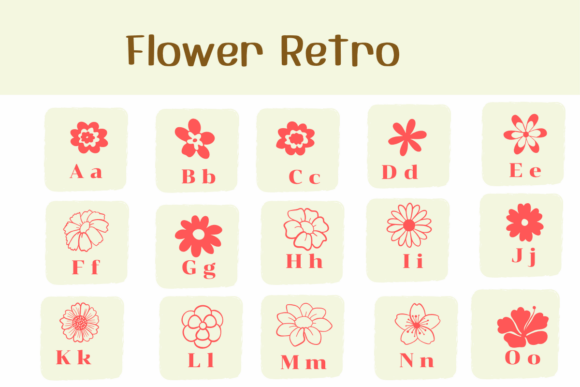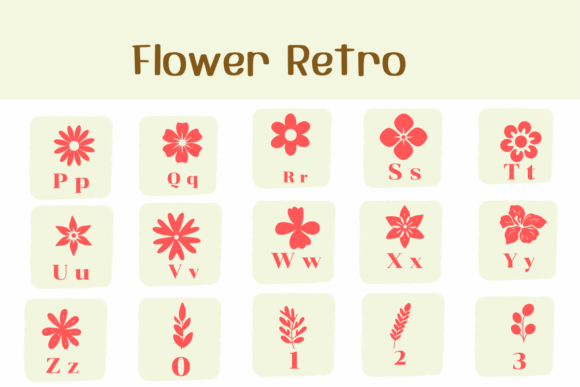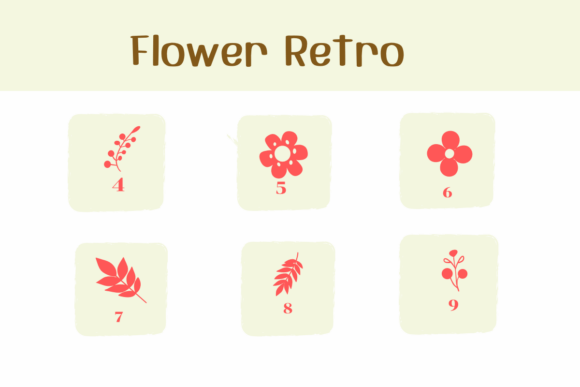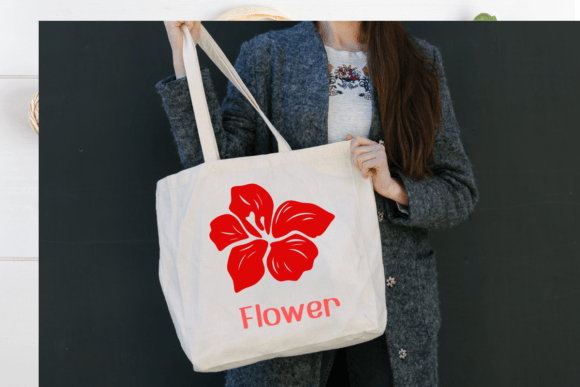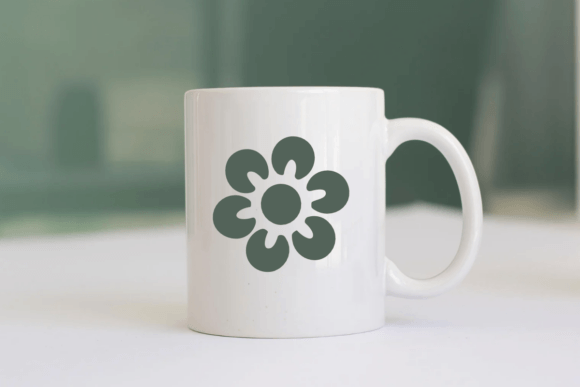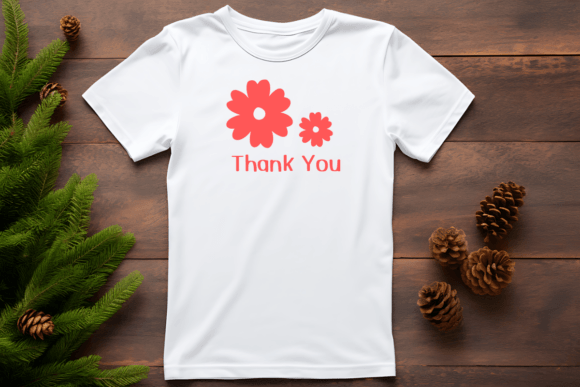
Introducing Flower Retro Font: Add a Touch of Vintage Charm to Your Designs
Are you looking for a unique and captivating way to add a retro touch to your creative projects? Look no further than the Flower Retro Font, a delightful dingbat font featuring a collection of charming floral and botanical designs with a vintage aesthetic. This beautiful font is perfect for designers, crafters, and anyone looking to add a whimsical, nostalgic feel to their work.
What is Flower Retro Font?
Flower Retro Font is a carefully crafted dingbat font that showcases a stunning collection of floral and botanical designs with a distinct retro flair. The font features a wide range of illustrations, including flowers, leaves, branches, and other natural elements, all presented in a charming, vintage style. Each design is meticulously crafted to evoke a sense of nostalgia and playfulness, making it perfect for a variety of creative applications.
Whether you’re a designer, crafter, or simply someone who loves to get creative, Flower Retro Font is an excellent addition to your toolkit. This versatile font can be used to add a touch of vintage charm to:
- Invitations: Create beautiful, one-of-a-kind invitations for weddings, parties, and special events.
- Branding: Add a unique, retro touch to your brand’s visual identity, packaging, and marketing materials.
- Stationery: Elevate your stationery designs with charming floral illustrations and decorative elements.
- Scrapbooks: Bring your scrapbook pages to life with these delightful, vintage-inspired designs.
- And more: Use Flower Retro Font to add a touch of whimsy to your craft projects, blog posts, and social media graphics.
Key Features of Flower Retro Font
Here are some of the key features that make Flower Retro Font so special:
- Unique, hand-crafted designs: Each illustration is carefully crafted to ensure a high level of detail and charm.
- Retro aesthetic: The font’s vintage-inspired style is perfect for adding a touch of nostalgia to your designs.
- Wide range of illustrations: The font includes a diverse collection of floral and botanical designs, ensuring you’ll find the perfect image for your project.
Tips for Using Flower Retro Font
To get the most out of Flower Retro Font, here are a few tips to keep in mind:
- Experiment with different sizes and colors: Play around with different sizes and colors to find the perfect combination for your design.
- Mix and match illustrations: Combine different illustrations to create a unique, eye-catching design.
- Use with other fonts: Pair Flower Retro Font with other fonts to create a striking contrast and add visual interest.
- Don’t be afraid to get creative: The possibilities are endless with Flower Retro Font – don’t be afraid to try new things and push the boundaries of your design.
| Font Name | Flower Retro Font |
| Author | Ketsarin |